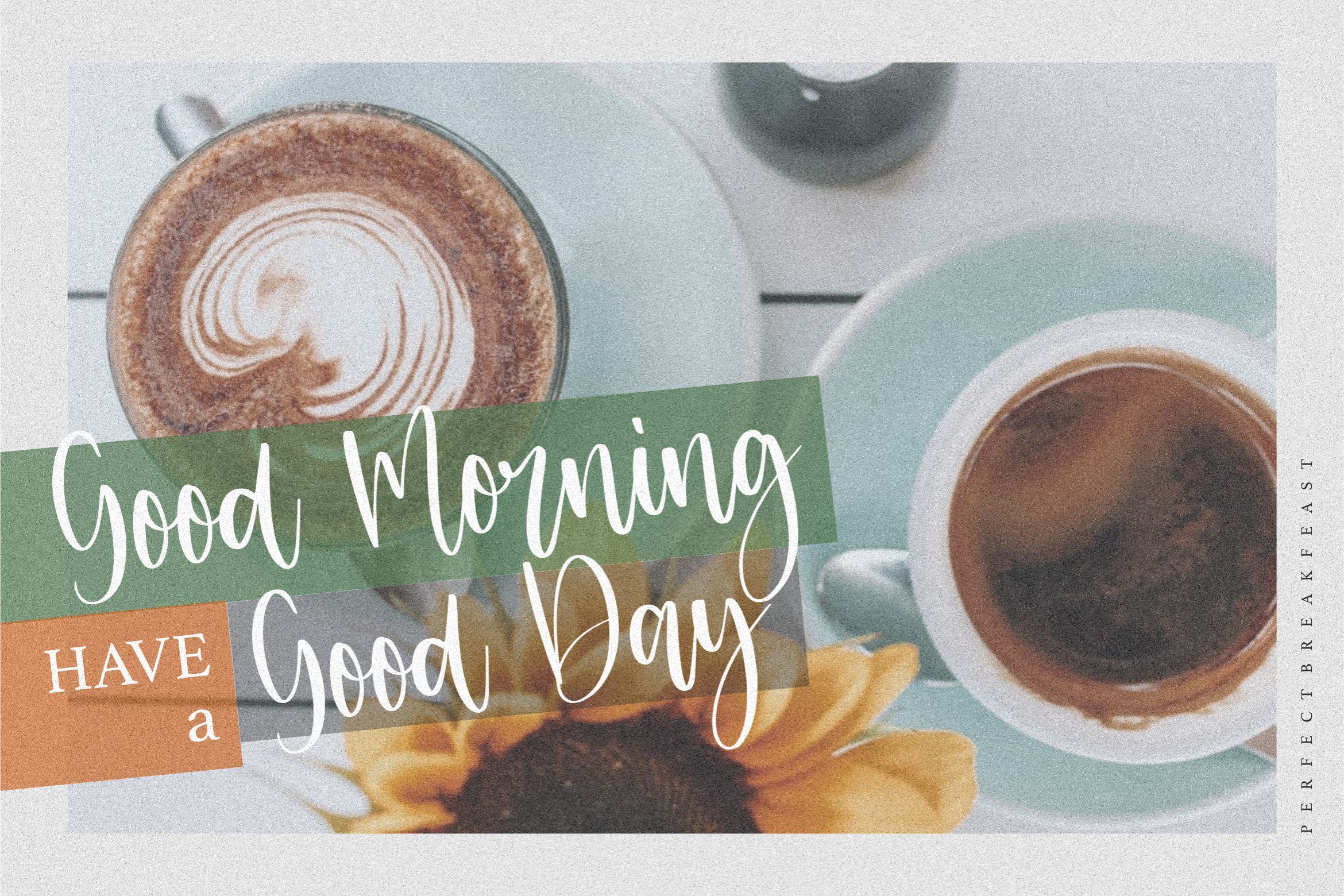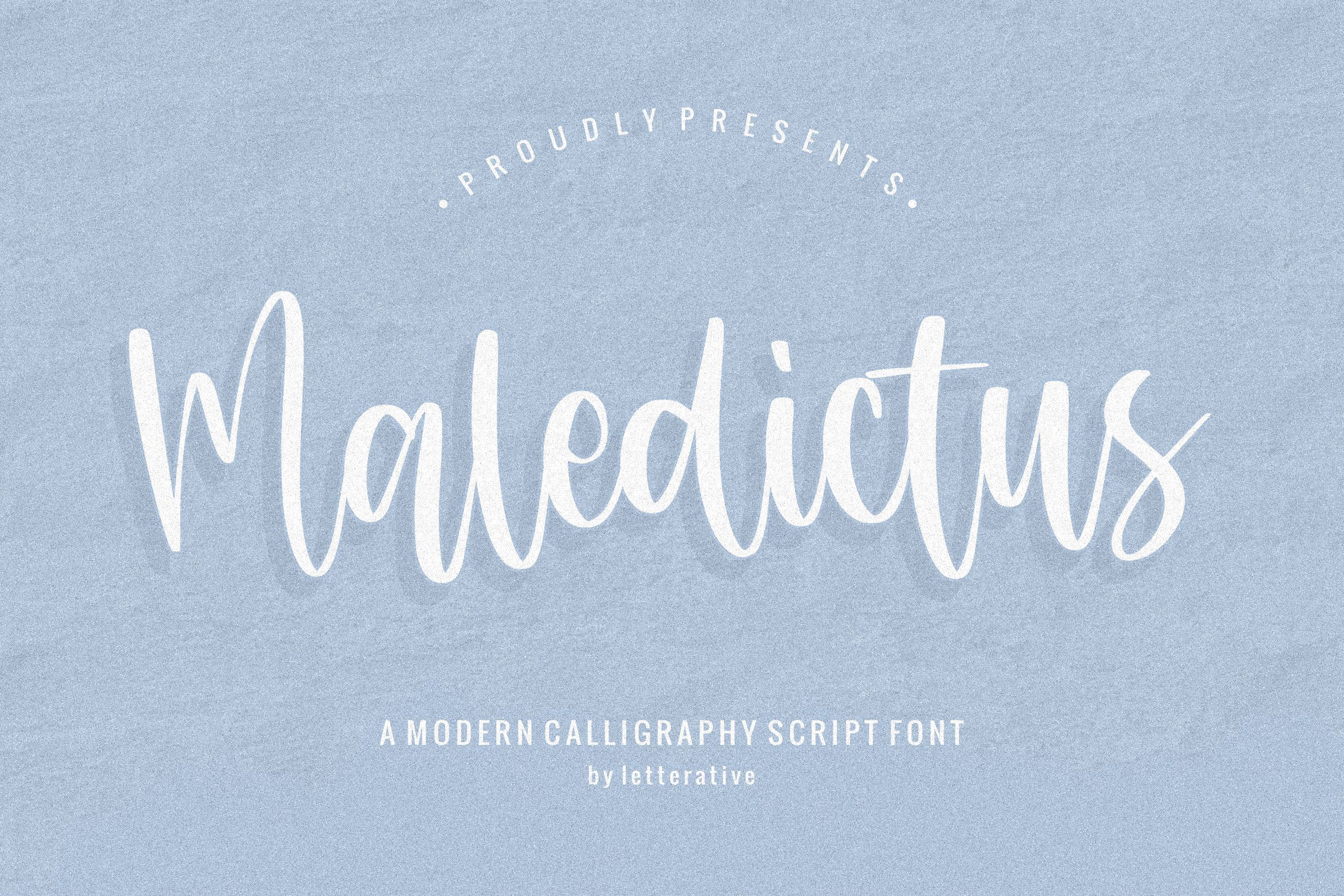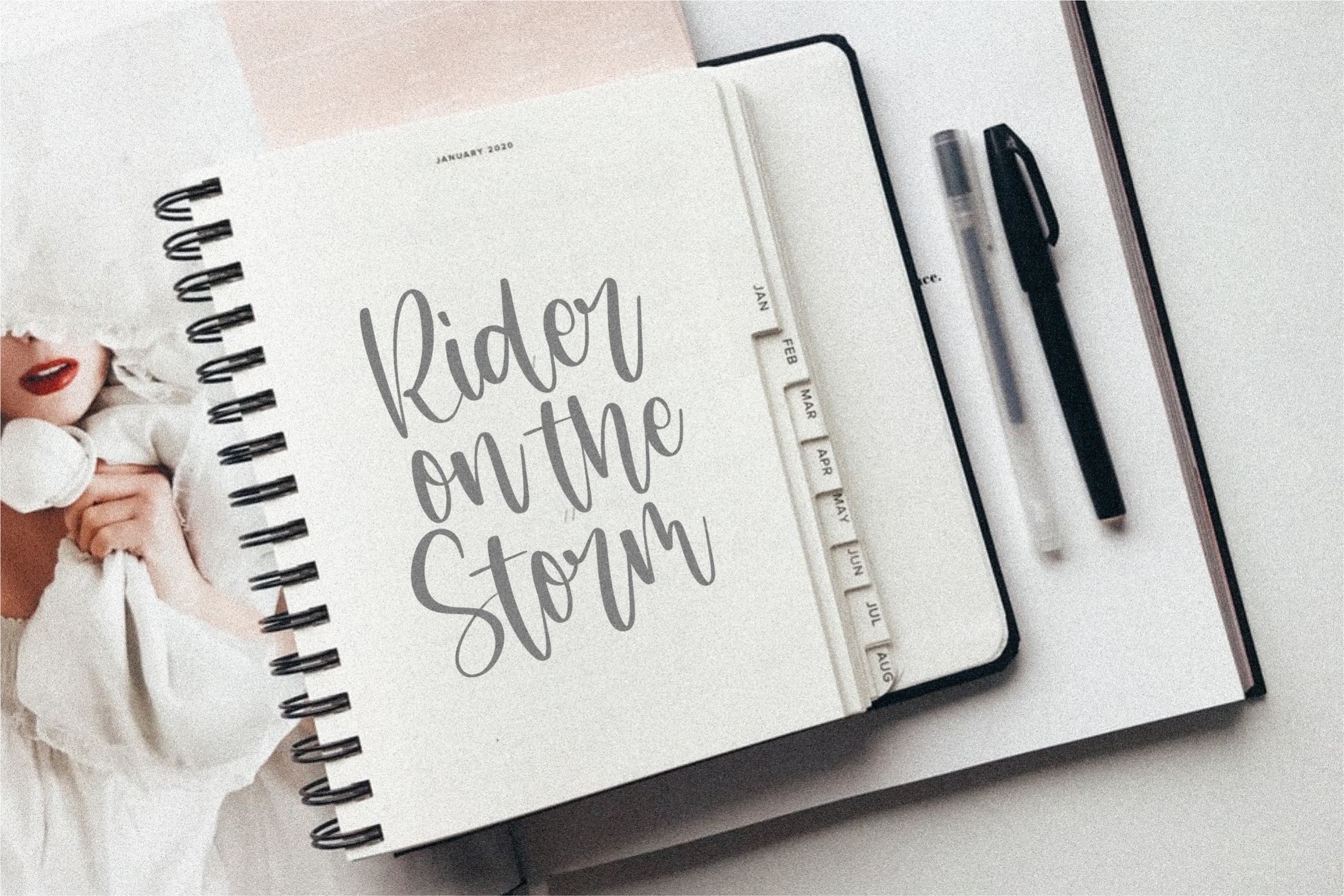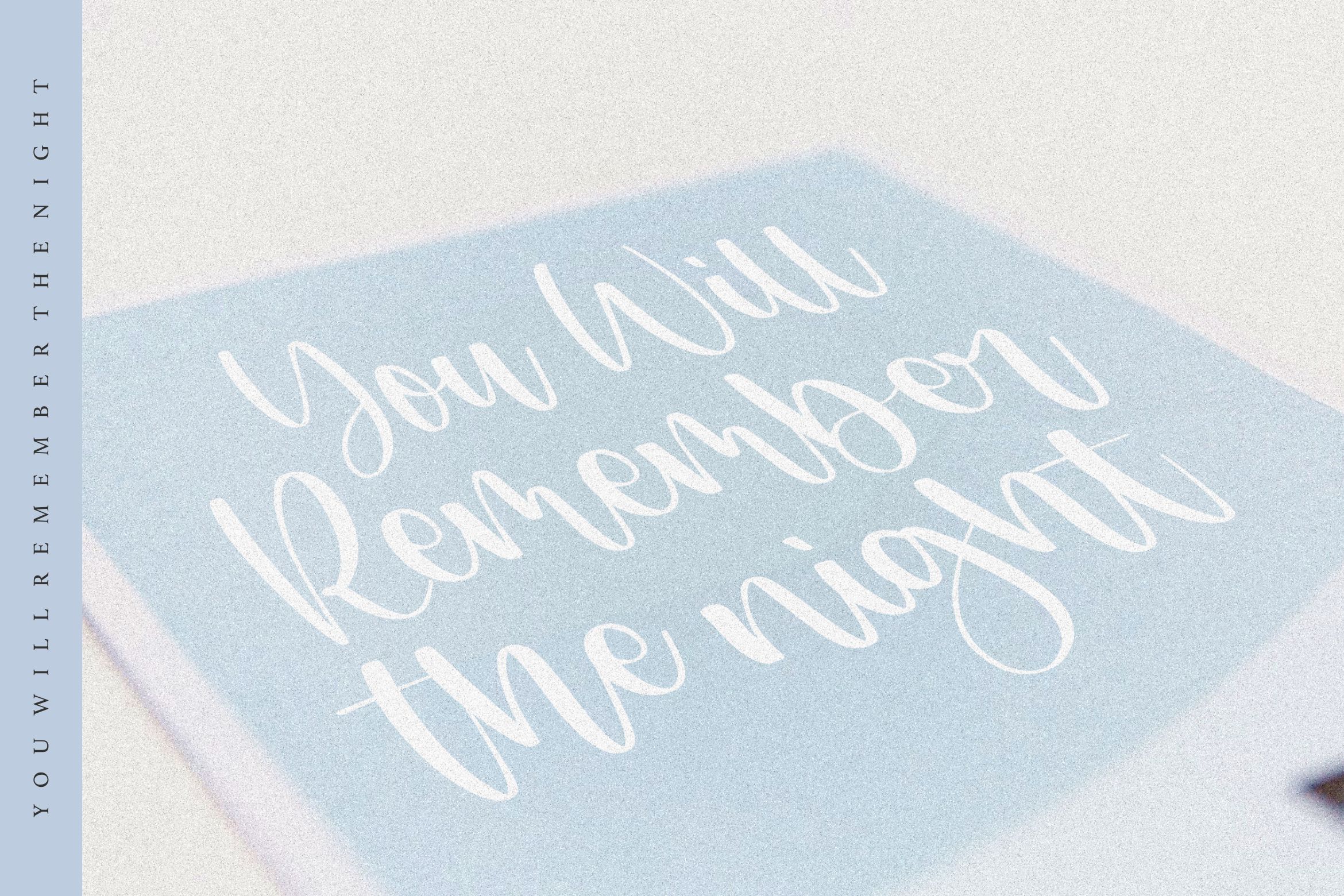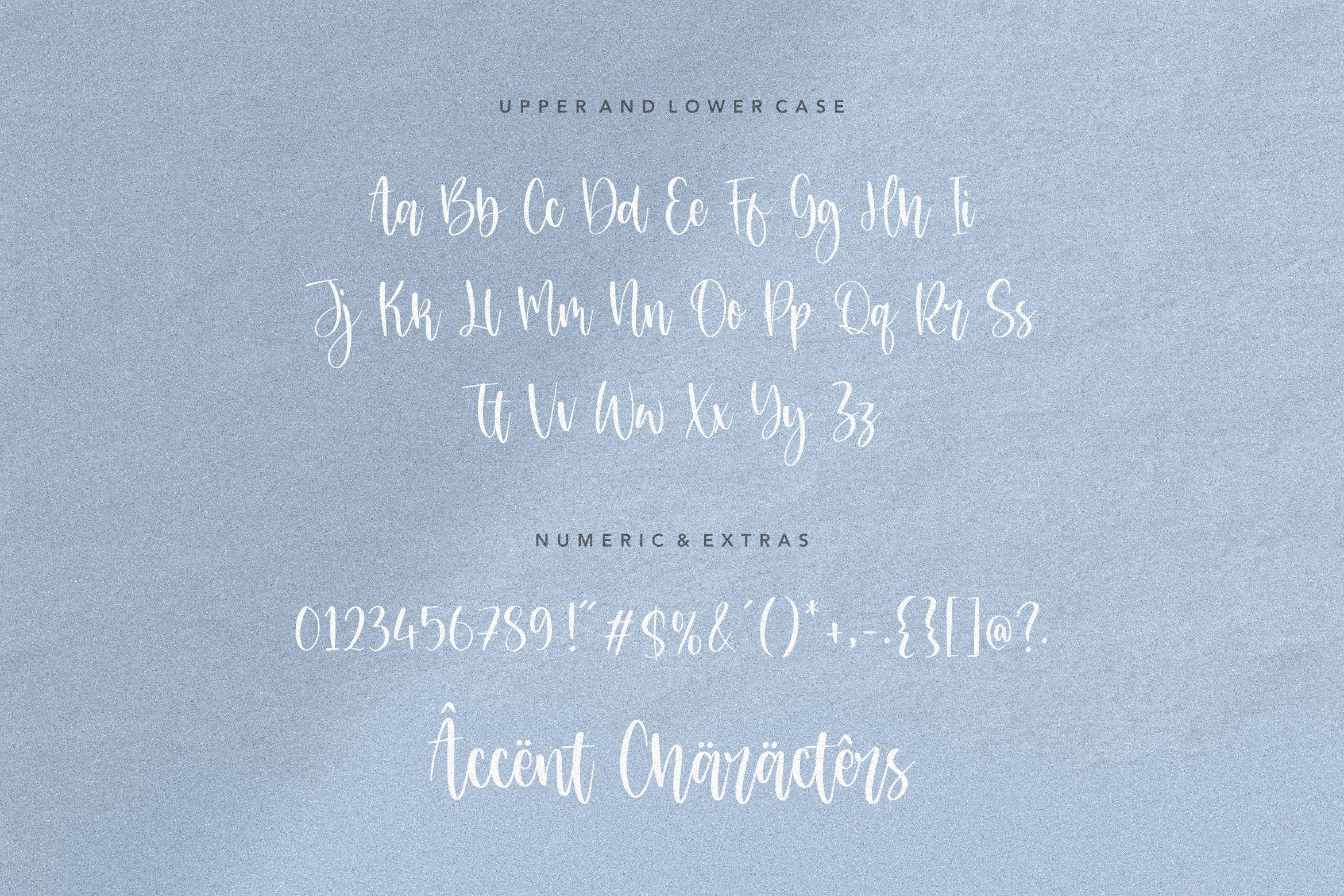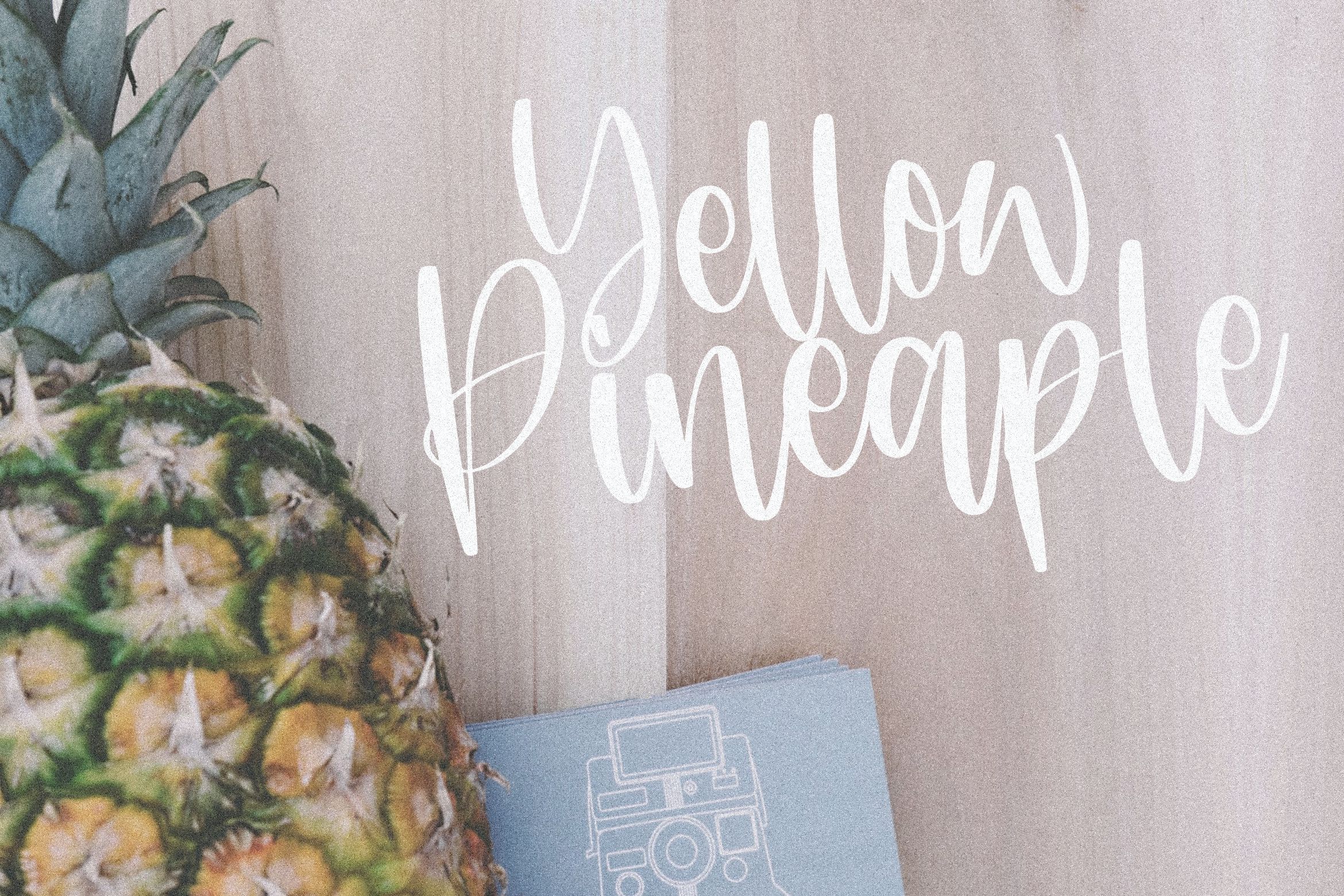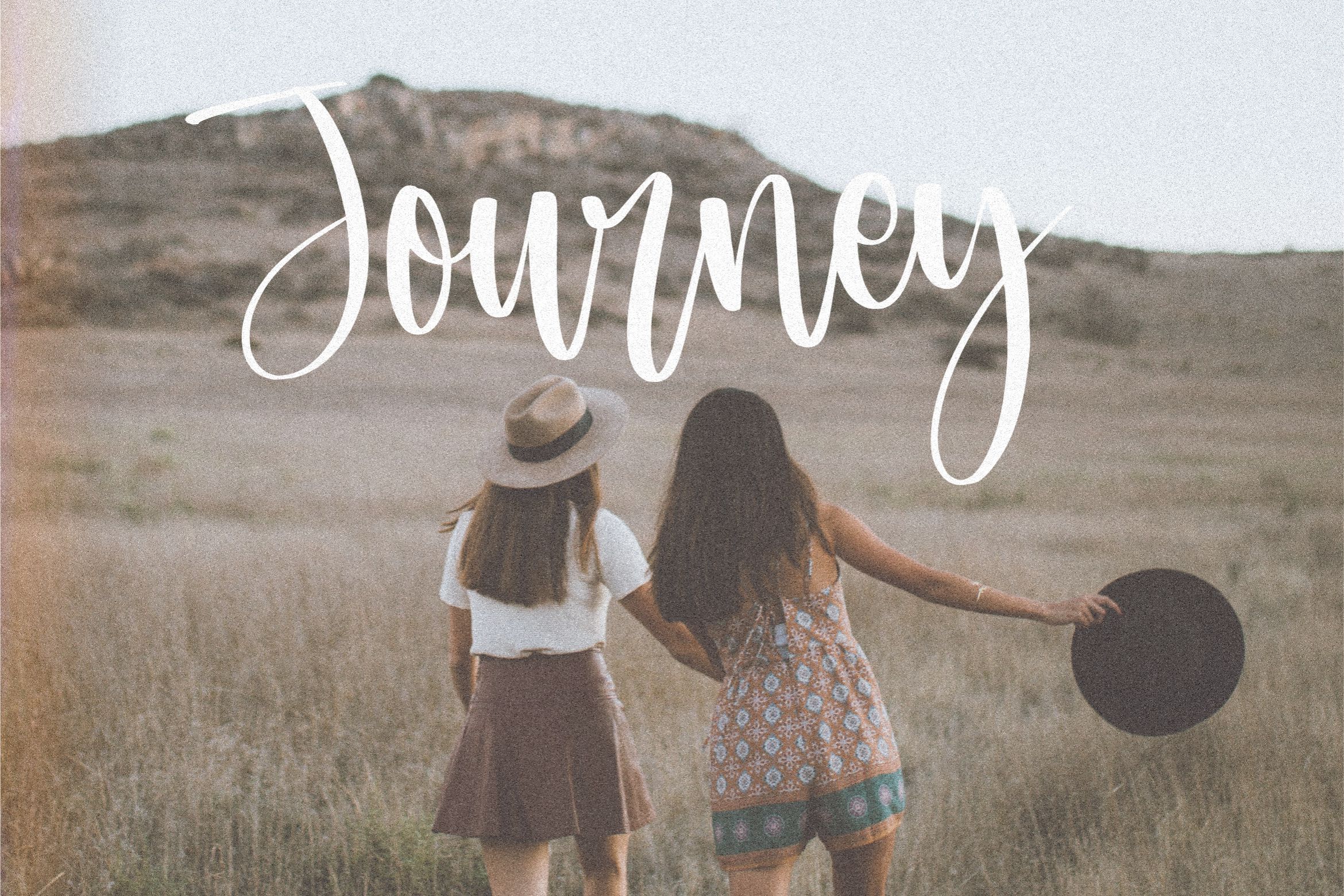
Maledictus Modern Handwritten Font
Introducing by Letterative Studio : Maledictus Font Maledictus is a Modern Handwritten Font Maledictus is a sweet and round lettered handwritten font. Dainty and joyful, this font will be ideal for writing wedding invitations, cards or any other design that may need a romantic, personalized touch! This font includes : TTF and OTF Maledictus also multilingual support Enjoy the font! Feel free to comment or feedback Send me PM or email Thank you!